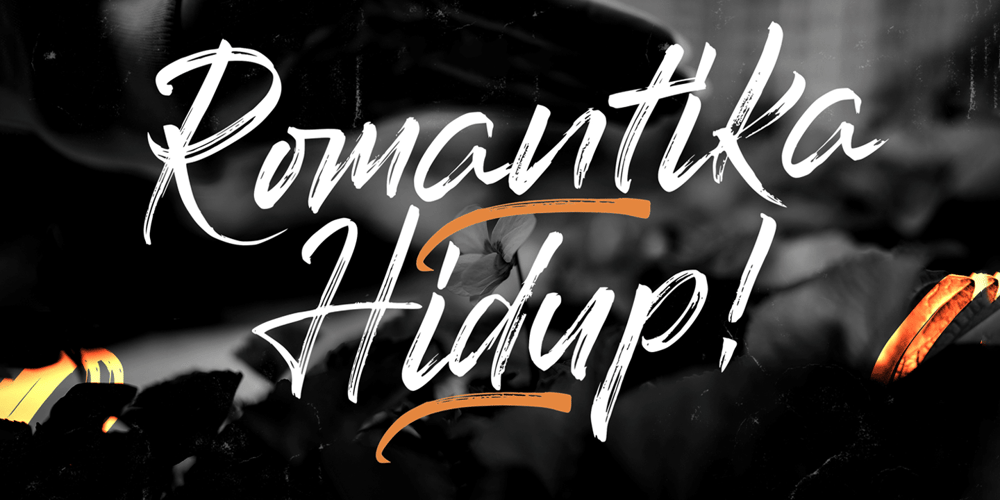
Romantika Hidup Font Family was designed by Virgiawan Listanto and published by Stringlabs Creative Studio. Romantika Hidup contains 1 styles and family package options. Romantika Hidup is a flowing and elegant handwritten font, created with the help of a brush pen. Get inspired by its unique and beautiful style and add it to your favorite designs!